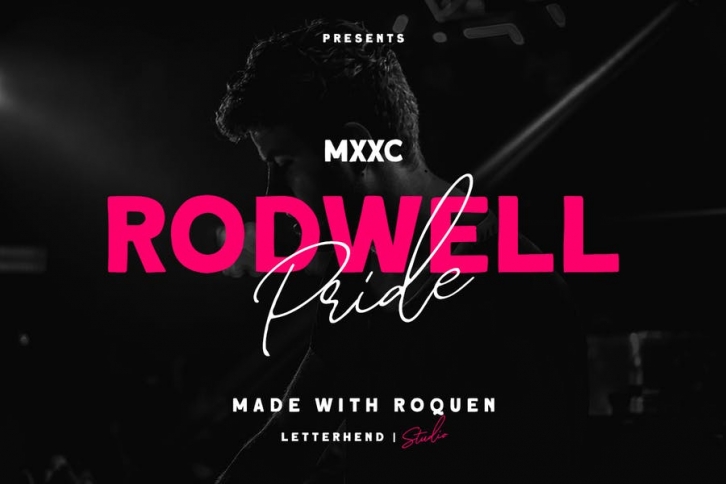
Introducing, Roquen Sans. A bold sans typeface. This item is really perfect for you who needs a typeface for especially logotype, apparel, invitation, branding, packaging, advertising etc. This typeface has features :
- Uppercase, lowercase, punctuations
- Symbols & numerals